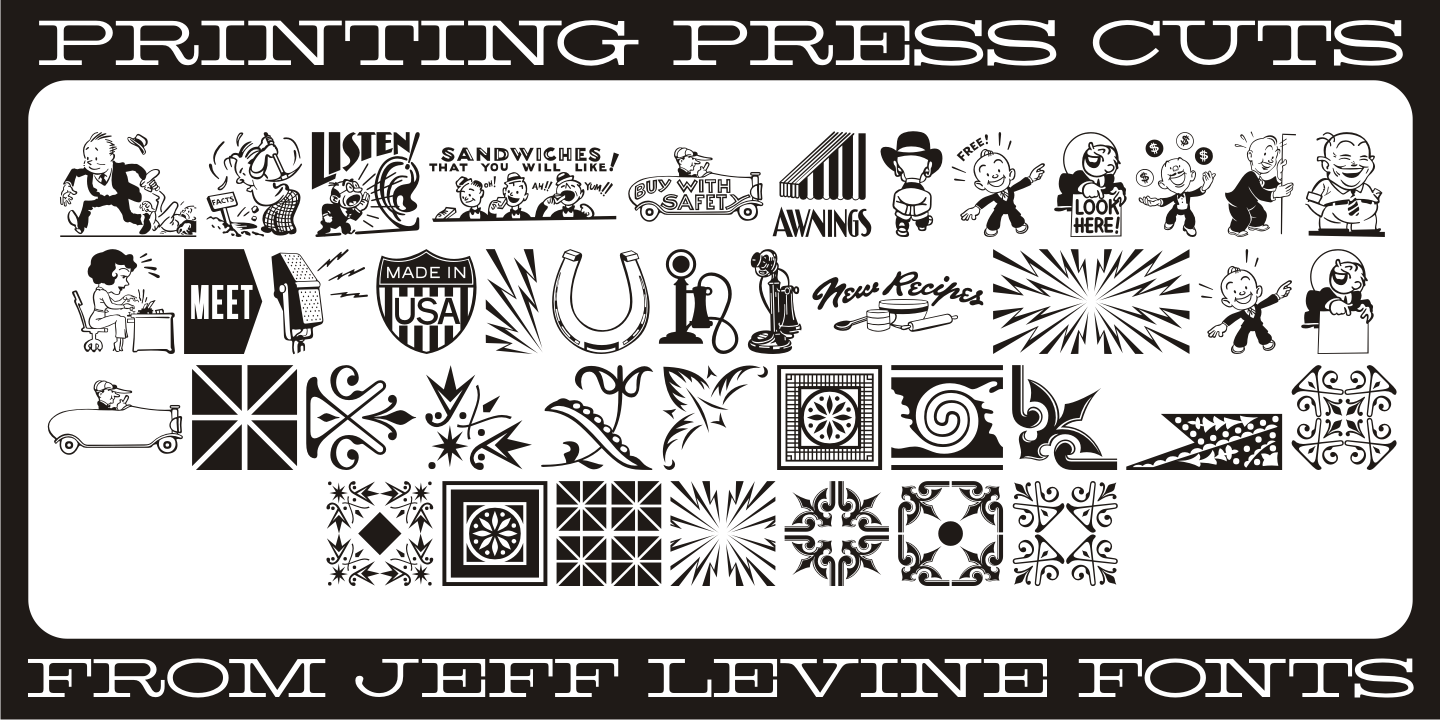
Printing Press Cuts
Printing Press Cuts JNL gathers vintage cartoons, sales helpers and decorative ornaments into one handy collection for embellishing any retro-oriented project.